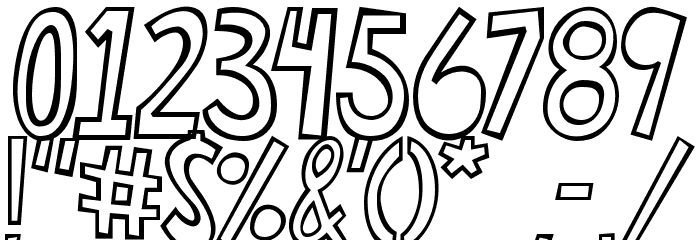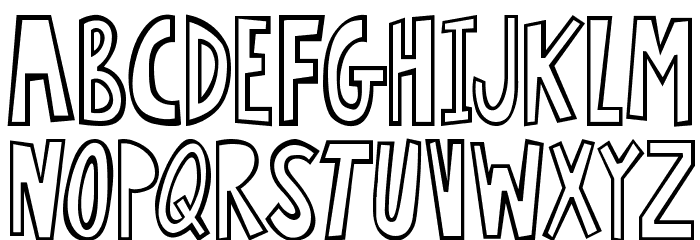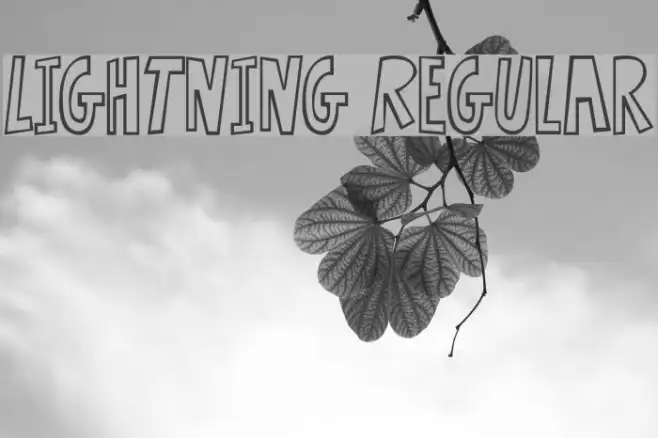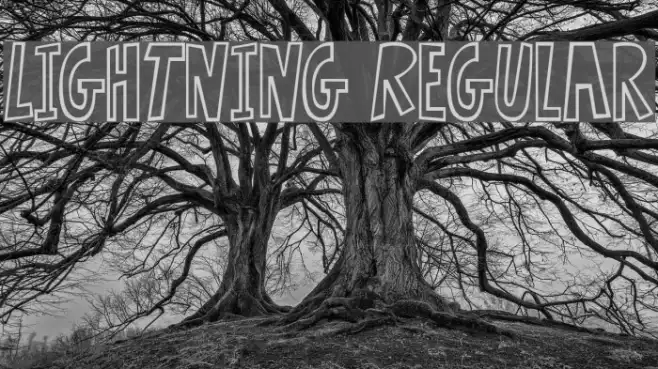
Lightning Regular Font
Lightning Regular Description
This font features a bold and playful style with a hand-drawn appearance, characterized by its thick outlines and slightly irregular shapes. The uppercase and lowercase letters maintain a consistent height, giving it a uniform look, while the numbers and special characters follow the same design ethos. The font's playful nature is enhanced by its slightly tilted characters, adding a dynamic and energetic feel. It is well-suited for projects that require a fun and informal touch, such as children's books, comic strips, or playful branding. The font's clear and bold lines ensure readability, making it effective for both print and digital media.
A bold, playful font with thick outlines and a hand-drawn style from Cartoon fonts.
- Proposed Projects: Ideal for children's books, comic strips, playful branding, and informal posters.
- Overall Style: Playful, Energetic